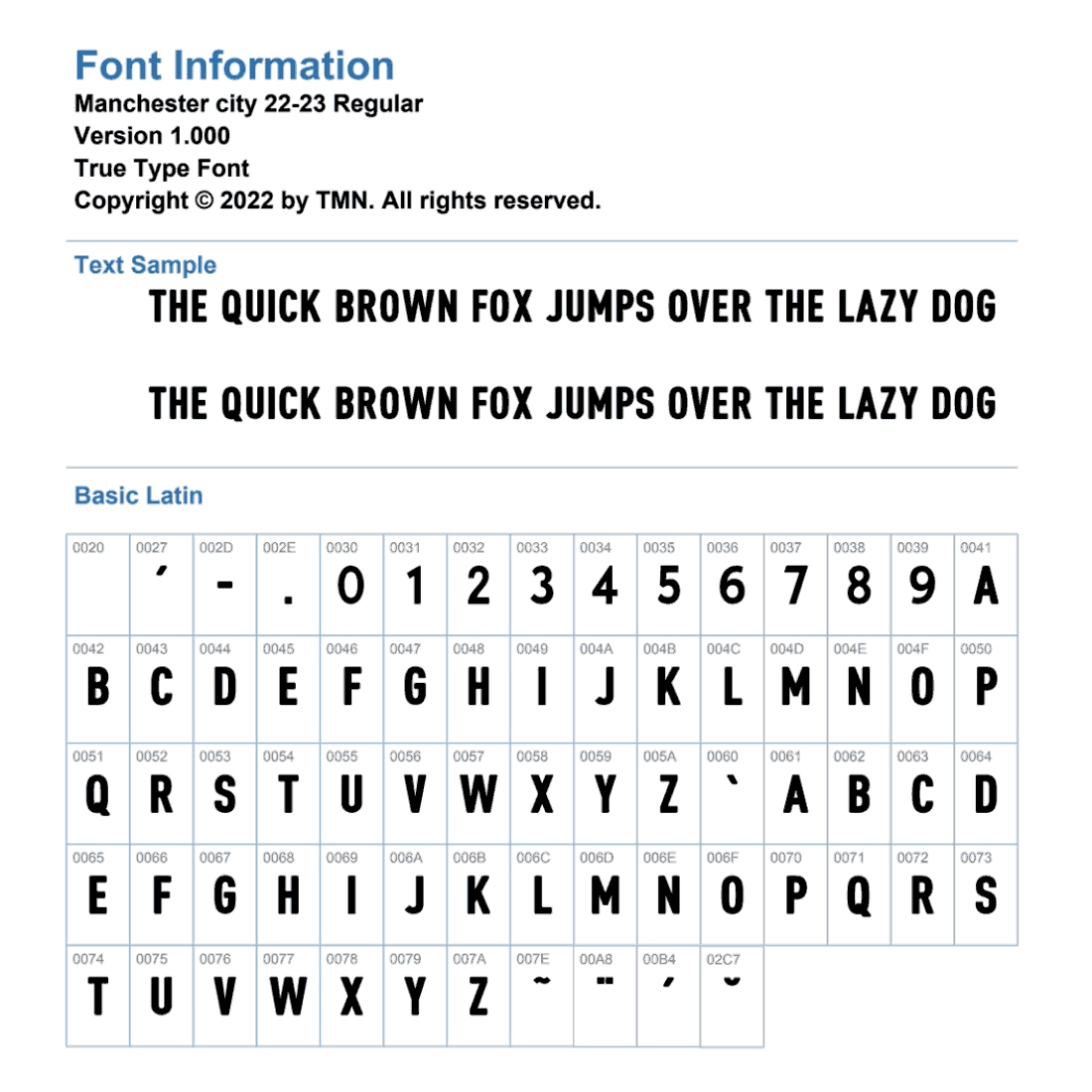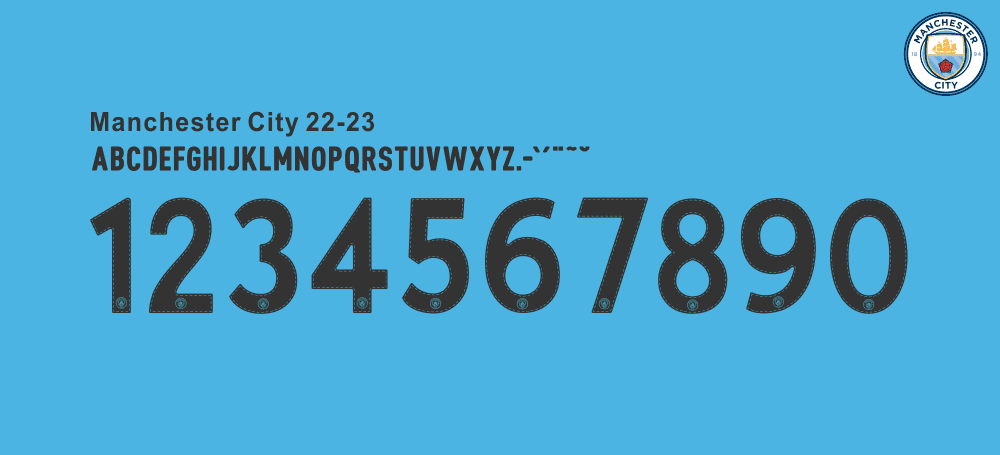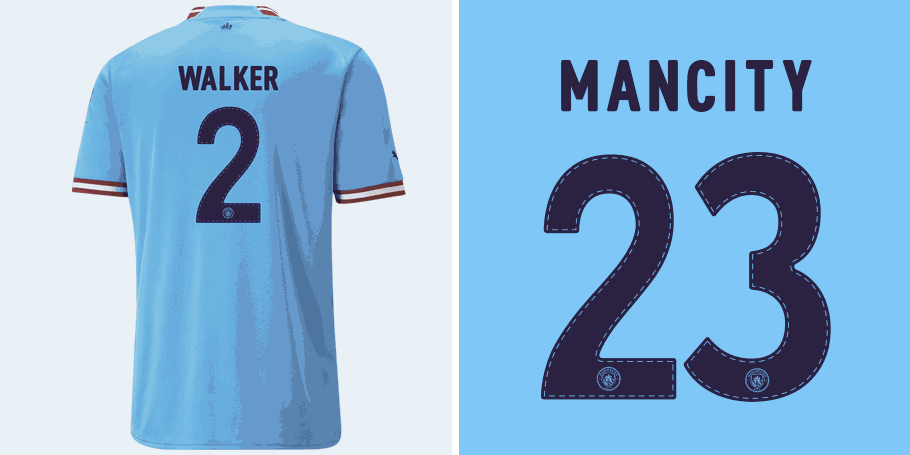
Manchester City and Puma replace their extraordinary clock-inspired 21-22 kit font with a classic typeface for the 22-23 season.
The Puma Manchester City typeface is inspired by football’s classic typefaces of the 1960s and 1970s. It is a stylish no-nonsense look, perfectly fitting the classic inspiration of the kit.
Two details round off the look – the Man City crest on the bottom and a dashed line. The dashed line mimics the look of stitched typefaces.